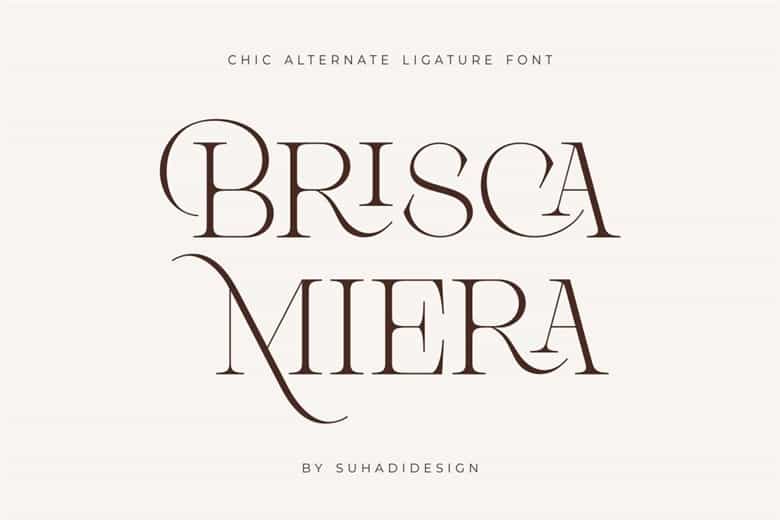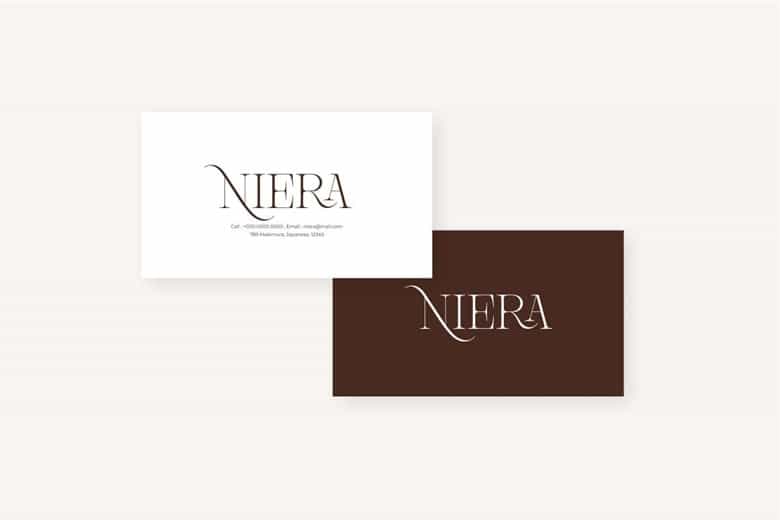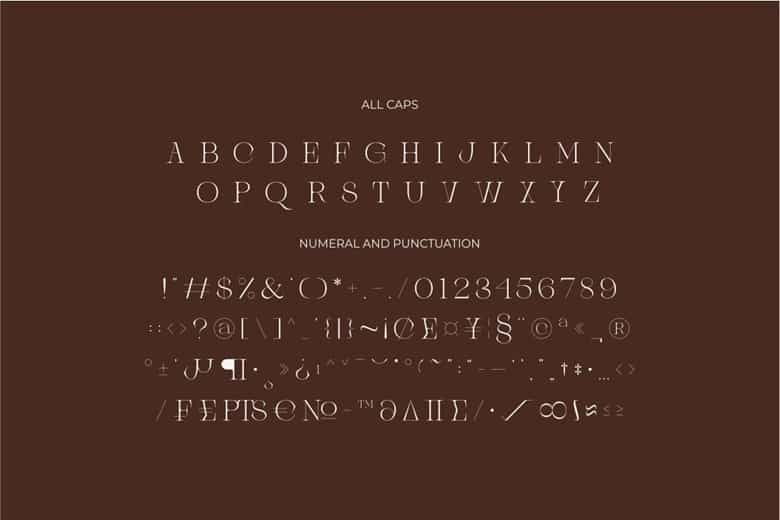
Discover Brisca Miera Font, part of the Serif collection—a versatile and unique font perfect for adding a personal touch to your projects. Download it for free and enjoy crafting designs with style, from invitations to social media posts. This font is available exclusively for personal use, giving you the freedom to create without limits. Unlock your creativity with Brisca Miera Font today!
Here we go with the latest look Brisca Miera modern font which is the serif font that many ladies and gentlemen are observing. Namely the Brisca Miera font. The Brisca Miera typeface is a Clear, thin and stylish serif typefaces. The product has matched a chic model with a charming fastener and it has quickly become a market delight.